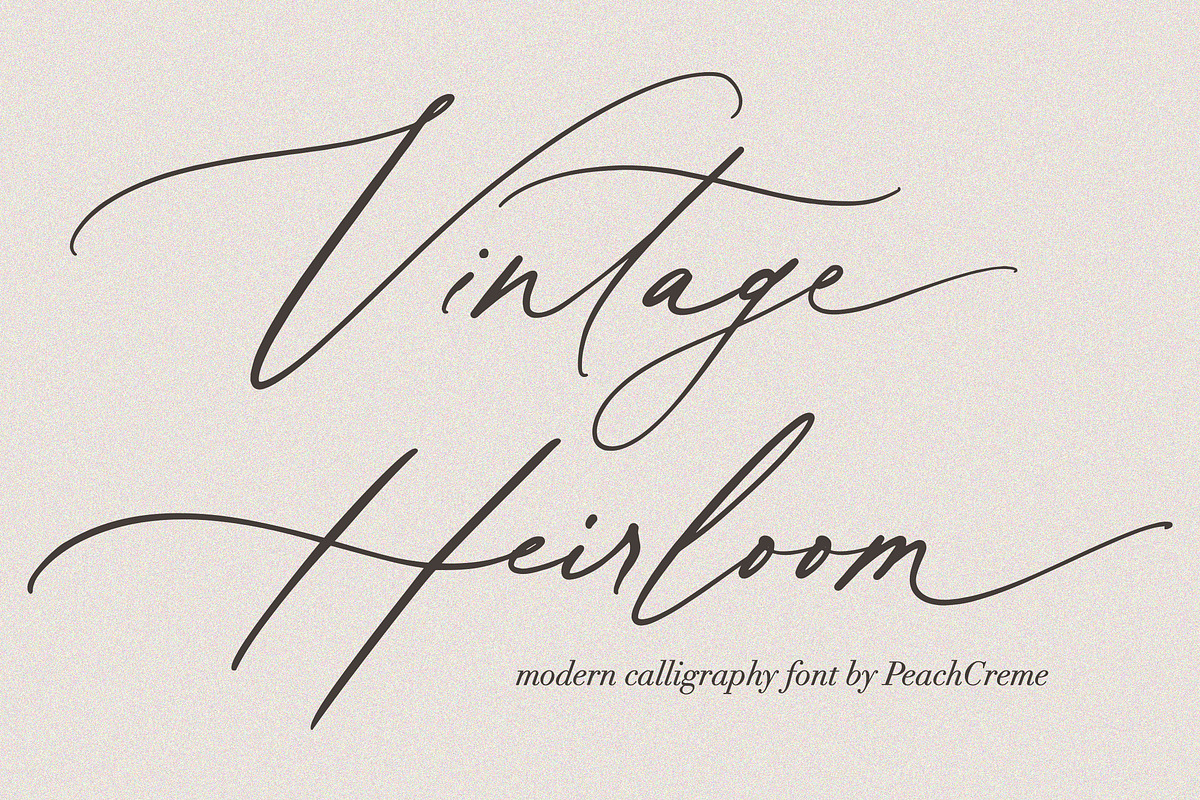
If you’re searching for a script that radiates classic charm while delivering modern versatility, Vintage Heirloom answers the call. This gorgeous calligraphy font combines refined hand‑lettered aesthetics with a comprehensive set of typographic tools, empowering designers to create invitations, branding, packaging, and web experiences that exude luxury and personal touch.
Why Vintage Heirloom Stands Out
Unlike generic scripts, Vintage Heirloom packs a full alphabet of uppercase and lowercase characters, numerals, punctuation, and a generous collection of 52 ligatures. Each lowercase glyph is paired with three distinct swash variations, letting you swap in elegant flourishes or subtle finishes with a single click. This depth of detail transforms ordinary text into a handcrafted masterpiece, saving you time while preserving artistic integrity.
Rich Feature Set for Creative Freedom
- Uppercase & lowercase letters – Complete character sets for balanced compositions.
- Numbers & punctuation – Seamless integration of figures and symbols.
- 52 OpenType ligatures – Smooth connections that eliminate awkward gaps.
- Three swash styles per lowercase – Instantly switch between subtle and dramatic flourishes.
Perfect Applications for Vintage Heirloom
From intimate wedding invitations to high‑end product packaging, this font excels wherever a touch of elegance is required. Its sophisticated strokes enhance:
Wedding & Event Stationery
Craft unforgettable save‑the‑date cards, RSVP forms, and ceremony programs that feel hand‑crafted yet polished.
Luxury Branding
Apply the script to logos, brand marks, and label designs for boutique hotels, artisanal goods, or boutique fashion lines.
Upscale Packaging
Elevate product boxes, wine labels, and gift wraps with a script that whispers refinement and attention to detail.
Web & Digital Media
- Combine Vintage Heirloom with a clean sans‑serif for contrast; the script shines as a headline or accent while the sans‑serif handles body copy.
- Test the font at various point sizes; its fine details hold up well even at smaller scales, making it suitable for both large headings and modest invitation details.
Elevate Your Designs with Vintage Heirloom
When you choose Vintage Heirloom, you’re not just selecting a font—you’re adopting a timeless tool that adds narrative depth and visual prestige to any project. Its blend of classic calligraphic flair and modern typographic flexibility makes it an indispensable asset for designers who demand elegance without compromise.